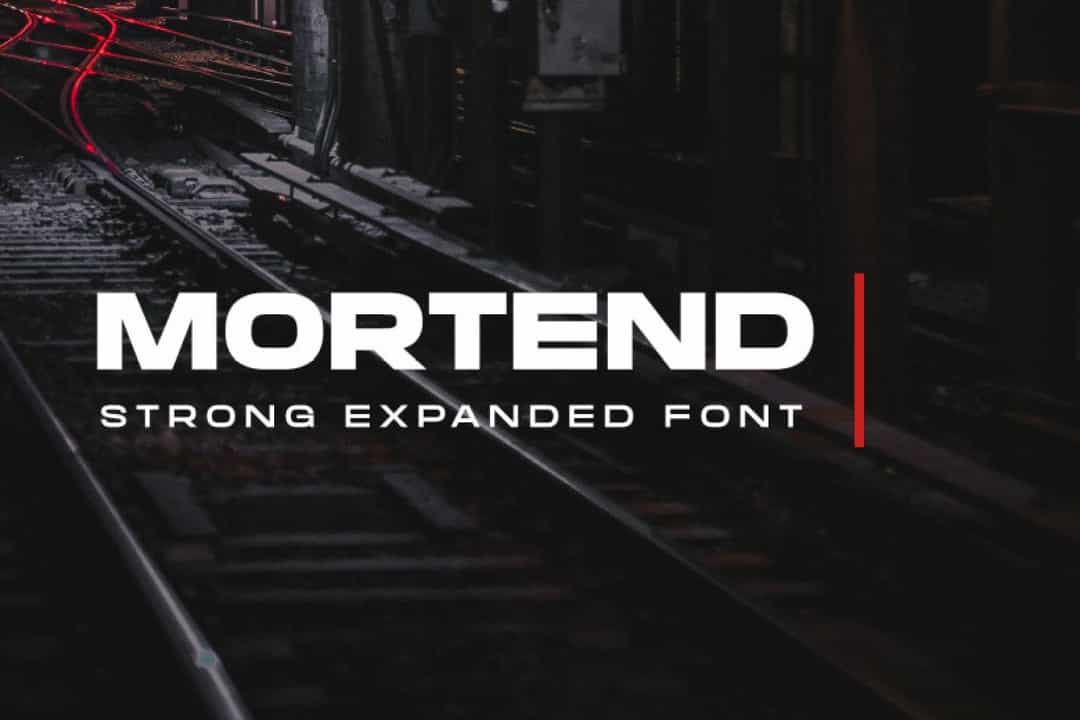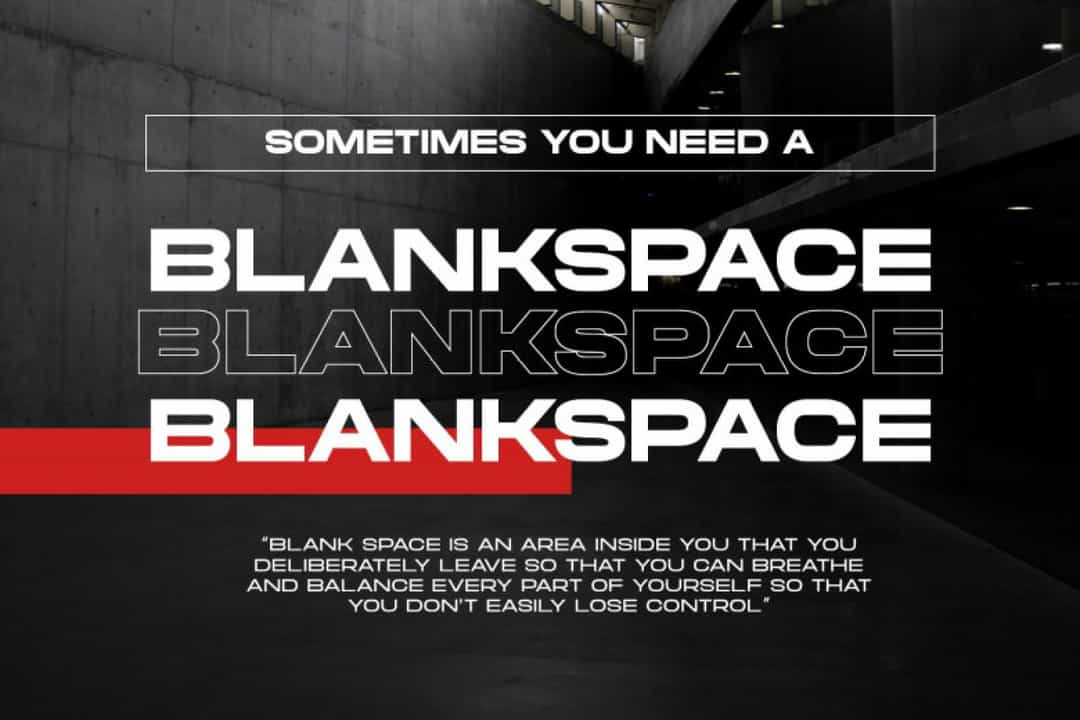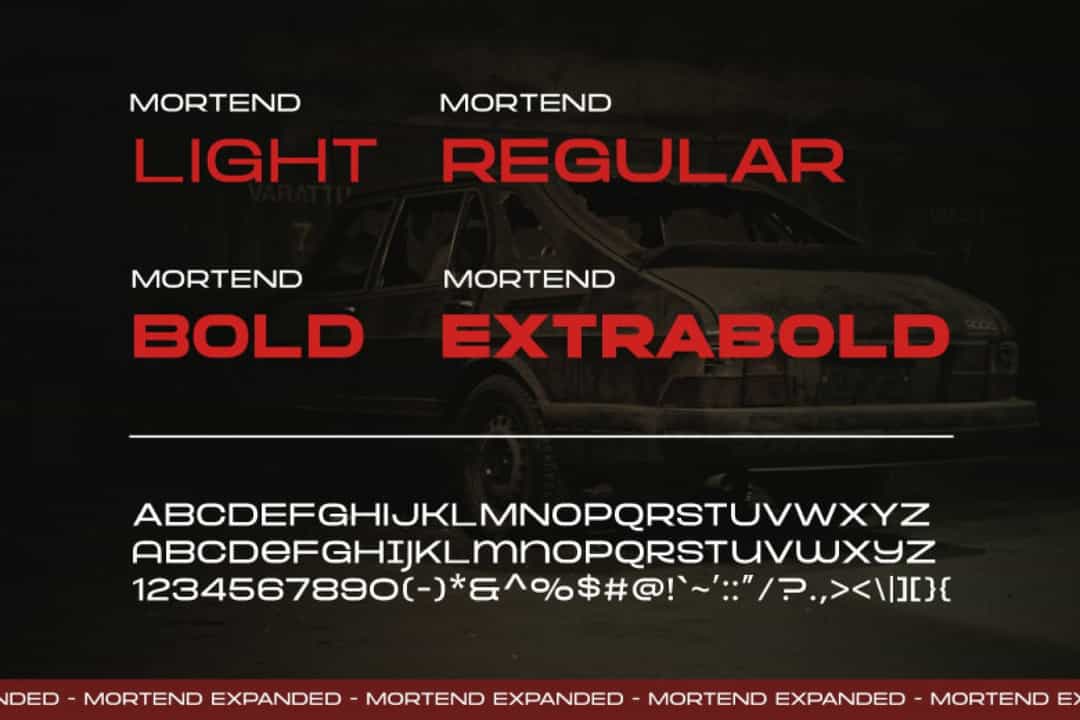
Mortend is an outstanding font family that has recently been extended. It features geometric designs, bold, powerful curves and contemporary aesthetic. Inspired by brutalism and minimalist designs that are trending today, the font allows you to unleash your creative side more freely than ever. Additionally, its strong yet elegant appearance provides ample opportunities for many uses.